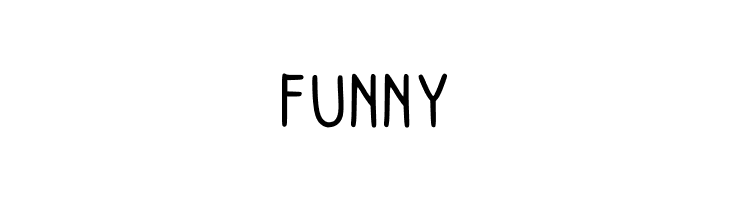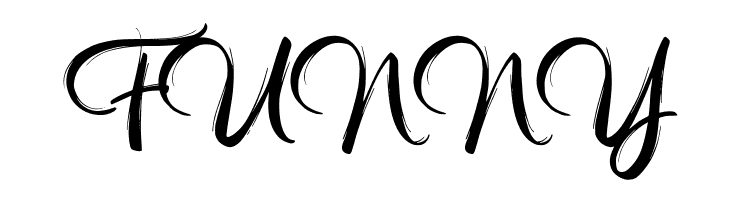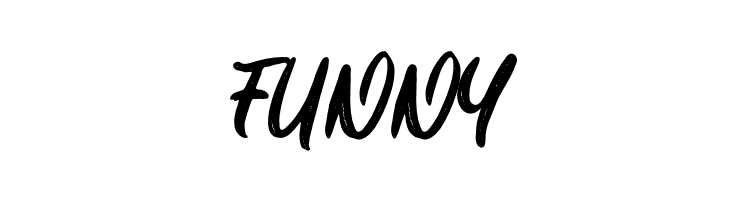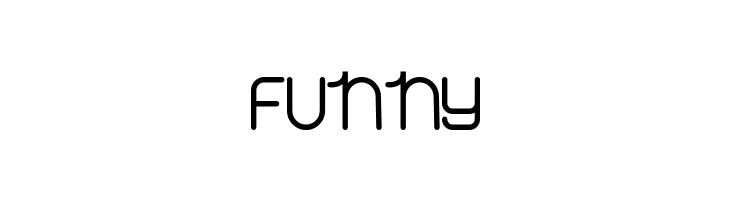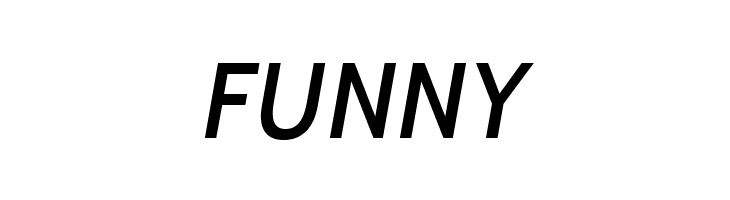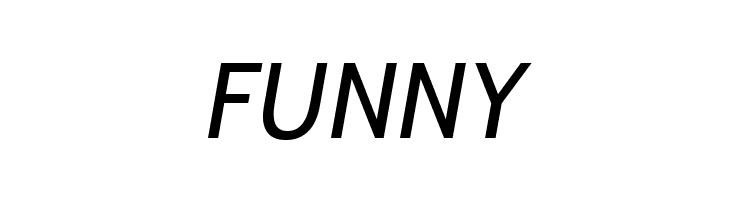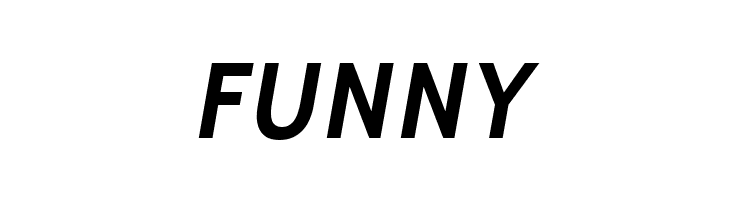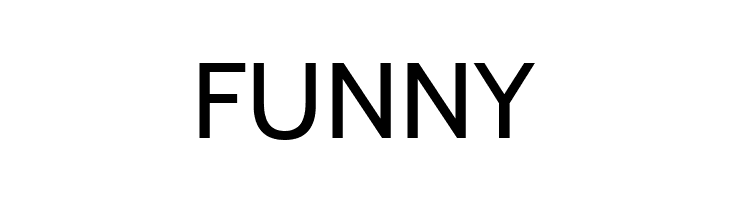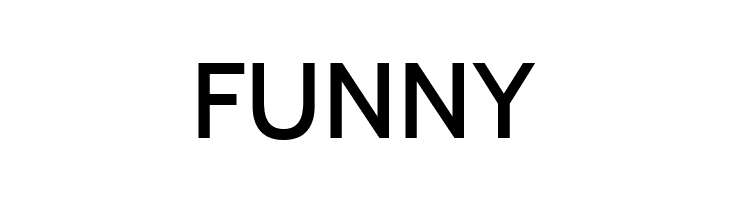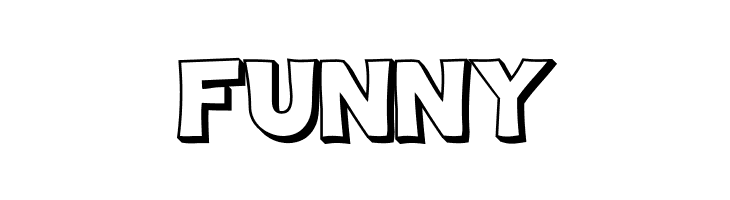
• CabbagetownSmCaps
A bold serif font with a vintage yet modern appeal, perfect for impactful headlines.
• CabbagetownSmCapsMicro
A bold, classic serif font with strong, well-defined characters.
• CabbagetownSmCapsNano
A bold, classic serif font with strong strokes and vintage charm.
• CabbagetownSmCapsStd
A bold, classic serif font with high contrast and strong serifs.
• CabbagetownStd
A bold, decorative font with a three-dimensional effect and pronounced serifs.
• CabbagetownStone
A bold, stencil-style font with geometric cutouts and an industrial feel.
• CabbagetownStoneMicro
A bold, chiseled font with a three-dimensional stone-carved look.
• CabbagetownStoneNano
A chiseled, stone-like font with a bold, decorative style.
• CabbagetownStoneStd
A bold, stencil-style font with a modern and industrial look.
• Cabe Rawit Regular
A playful, handwritten font with rounded, consistent strokes and a casual feel.
• Cabello Script
A modern script font with flowing lines and rounded edges.
• Caberne
A bold, decorative font with a vintage, western-inspired style.
• Cabin Bold
A bold, modern sans-serif font with clean lines and strong readability.
• Cabin Bold Italic
• Cabin Italic
A modern, italic sans-serif font with clean lines and excellent readability.
• Cabin Medium
A modern, clean sans-serif typeface with uniform stroke widths and excellent readability.
• Cabin Medium Italic
A modern sans-serif font with an italic slant, offering clarity and style.
• Cabin Regular
A clean, modern sans-serif typeface with consistent stroke width and excellent readability.
A bold, textured font with a vintage, distressed style.
• Cachet Regular
A playful, casual handwritten font with organic strokes and rounded edges.